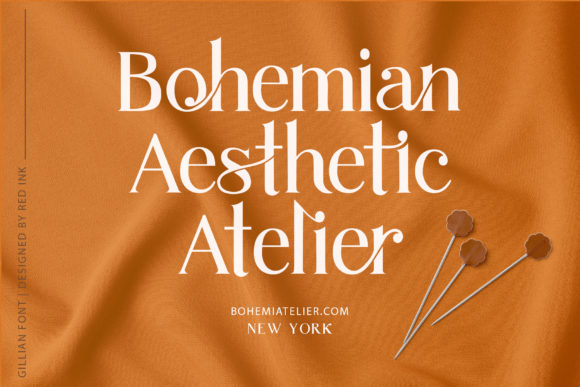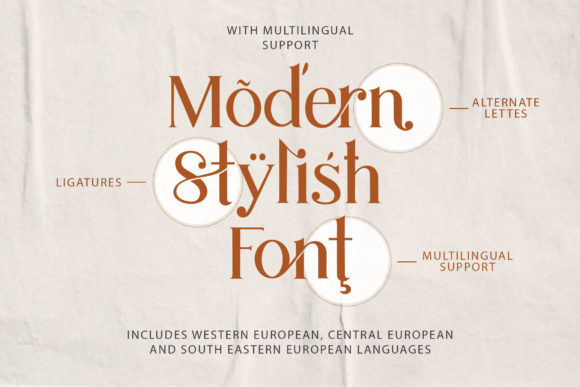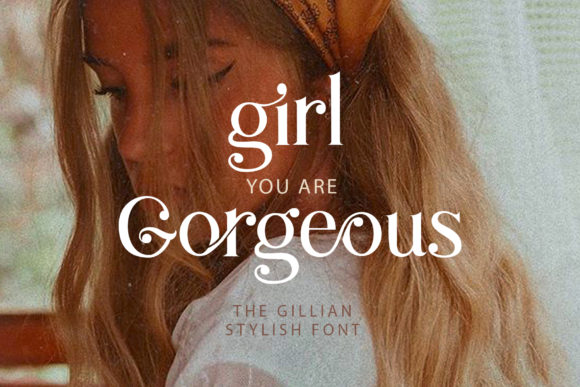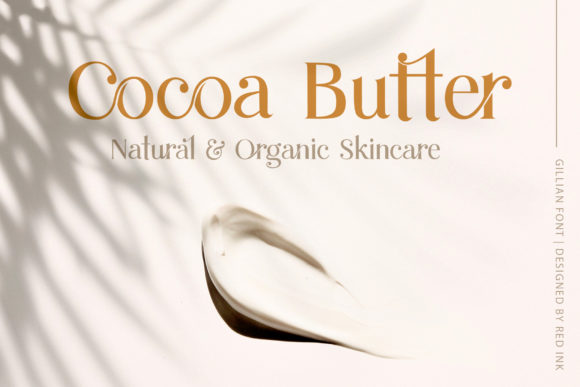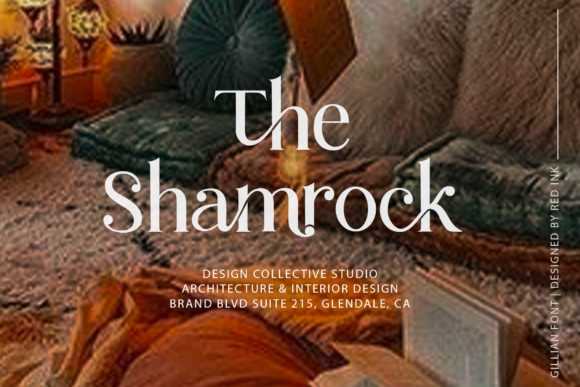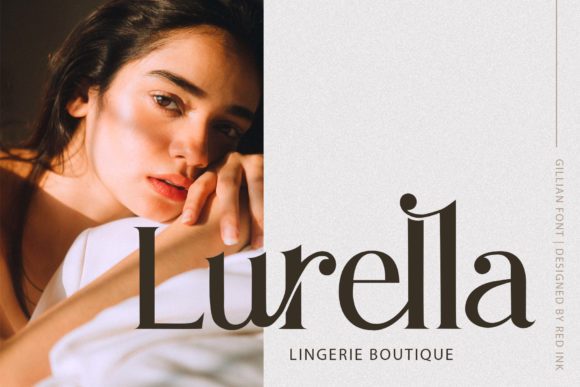
Gillian Font: Elevate Your Designs with a Cool and Stylish Serif
In the world of typography, fonts play a crucial role in defining the aesthetic and tone of a design. For designers and crafters looking for a font that exudes style and sophistication, Gillian Font is an excellent choice. This cool and stylish serif font is characterized by its smooth curves, making it perfect for fashion branding, editorial designs, and a wide range of creative projects.
What Makes Gillian Font Stand Out?
Gillian Font is distinguished by its unique blend of classic serif elements and modern flair. Its smooth curves give it a fluid, elegant appearance that can add a touch of luxury to any design. Whether you’re working on a fashion brand’s logo, an editorial layout, or a craft project, Gillian Font is sure to make a statement.
Key Features of Gillian Font
- Serif Elegance: Gillian Font boasts traditional serif elements that evoke a sense of timelessness and sophistication.
- Smooth Curves: The font’s smooth, flowing curves add a modern twist to its classic serif structure, making it versatile for various design applications.
- Fashion and Editorial Friendly: Designed with fashion branding and editorial designs in mind, Gillian Font is perfect for projects that require a stylish and refined look.
- Easy to Read: Despite its elegant and stylish appearance, Gillian Font remains highly legible, making it suitable for both headlines and body text.
Uses of Gillian Font
Gillian Font’s versatility makes it an excellent choice for a variety of design projects. Here are some of the best uses for this stylish serif font:
- Fashion Branding: From logos to packaging, Gillian Font can help fashion brands achieve a sophisticated and high-end look.
- Editorial Designs: Add elegance to your editorial layouts, including magazines, newspapers, and blogs, with Gillian Font’s refined appearance.
- Advertising: Use Gillian Font in advertisements to grab attention with its stylish and professional look.
- Web Design: Enhance your website’s typography with Gillian Font, creating a memorable experience for visitors.
- Crafting and DIY Projects: Whether you’re creating digital content or physical products, Gillian Font can add a touch of class to your crafting and DIY projects.
Tips for Using Gillian Font Effectively
To get the most out of Gillian Font, consider the following tips:
- Pair with Complementary Fonts: For maximum impact, pair Gillian Font with sans-serif fonts or script fonts to create contrast and visual interest.
- Experiment with Weights: If available, experiment with different weights of Gillian Font to create hierarchy and emphasis in your designs.
- Adjust Tracking and Kerning: Fine-tune the spacing between letters for optimal readability and aesthetic appeal.
- Use for Headlines and Subheadings: While it’s legible enough for body text, Gillian Font truly shines in headlines and subheadings where its elegance can be fully appreciated.
Gillian Font is a stylish and versatile serif font that can elevate your designs to new heights. Its smooth curves and classic elegance make it an excellent choice for fashion branding, editorial designs, and a wide range of creative projects. By incorporating Gillian Font into your work, you’ll add a touch of sophistication and style that’s sure to impress. So why wait? Add Gillian Font confidently to your projects and enjoy the stylish results.